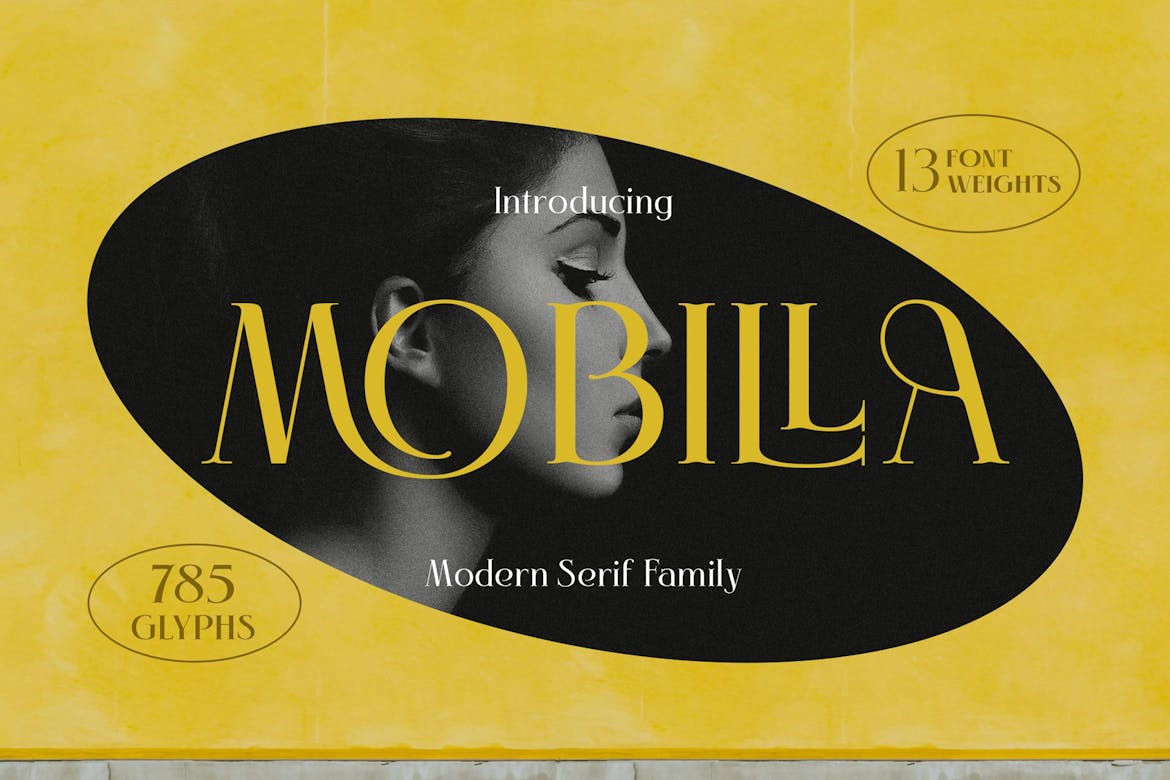
Mobilla Serif Elegant Font
Mobilla Serif Elegant Font is perfect for luxury branding projects, high-end wedding invitations, premium magazine layouts, sophisticated book design, elegant logo creation, upscale restaurant menus, fashion brand identity, jewelry advertising, and refined editorial typography.
What makes Mobilla Serif Elegant Font exciting is its exquisite refinement that captures the timeless beauty of classical typography while maintaining contemporary relevance and versatility. This sophisticated typeface features graceful serifs, delicate stroke contrasts, and carefully balanced proportions that exude luxury and sophistication. The font's elegant character creates an immediate sense of prestige and quality, making it indispensable for brands that need to communicate exclusivity, craftsmanship, and refined taste to discerning audiences who appreciate traditional elegance.
Mobilla Serif Elegant Font family includes multiple refined variations: Light, Regular, Medium, SemiBold, Bold, and Display weights, each available in both roman and italic styles. This comprehensive collection provides 12 beautifully crafted fonts that enable designers to create sophisticated typographic hierarchies while maintaining the elegant aesthetic throughout complex design systems.
Professional designers value Mobilla Serif Elegant Font for its versatility and timeless appeal. The font's balanced contrast and refined serifs work beautifully in both large display applications and extended reading contexts. Its sophisticated character appeals to audiences seeking quality, tradition, and authentic craftsmanship.
Whether used for heritage luxury brands or contemporary premium services, Mobilla Serif Elegant Font consistently delivers sophisticated typography that communicates excellence, refinement, and enduring value that transcends temporary design trends.